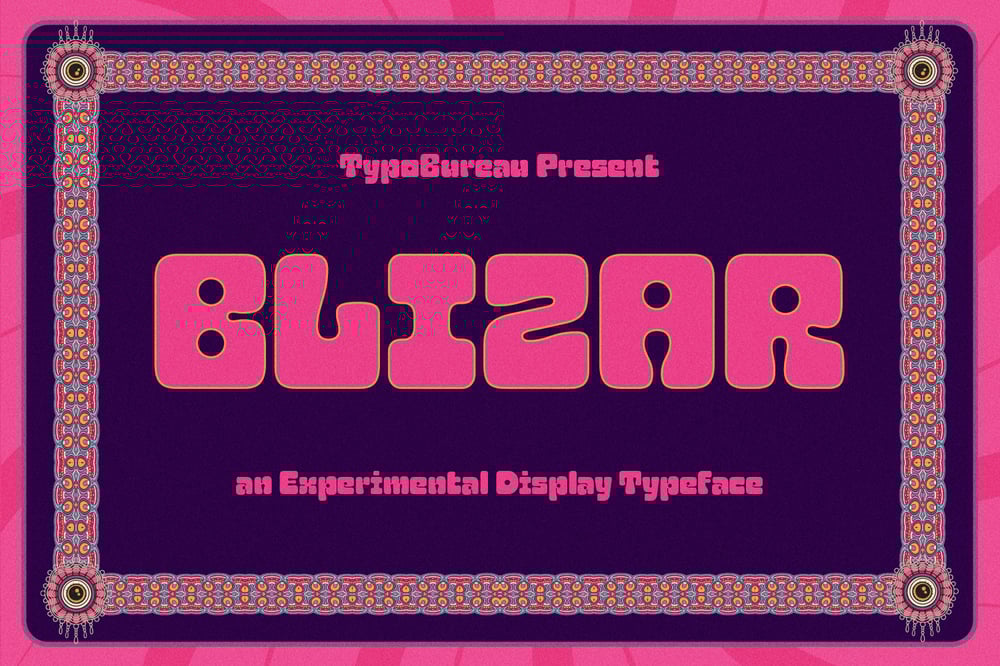
TBS Blizar
TBS Blizar font
TBS Blizar Font Family was designed by Tubagus Iqbal T and published by TypoBureau Studio. TBS Blizar contains 1 styles and family package options. TBS Bizar is an experimental font sans based that inspired by the shape form of psychedelic. the font weight is ExtraBold so It works good visually for Display purposes and a short paragraph in 32pt, it has wide range of European Accents (multilingual), this font suit for headline, Poster, Print, Branding, Packaging and more. free update features.